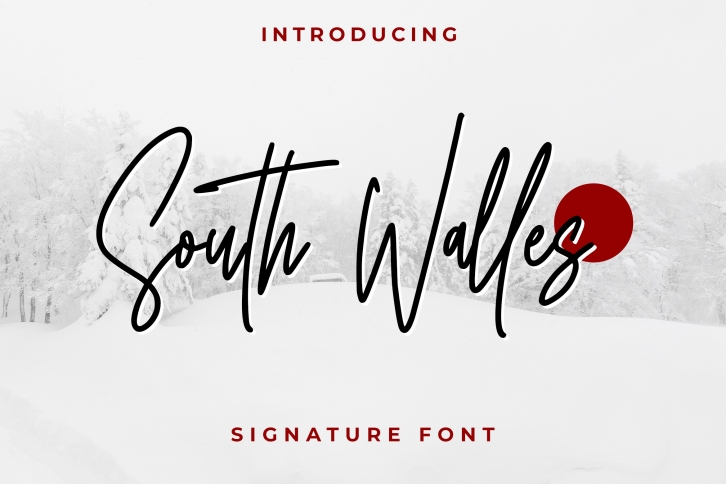
South Walles Signature Font Download
South Walles Signature is a gorgeous font that was realeased on November 12, 2019. The font can be used in many style contexts and design environments. Perfect for invitations, magazines, websites, logos, and more! It was designed by aldedesign and the file size is 7.10 MB. Thanks for checking out this font!